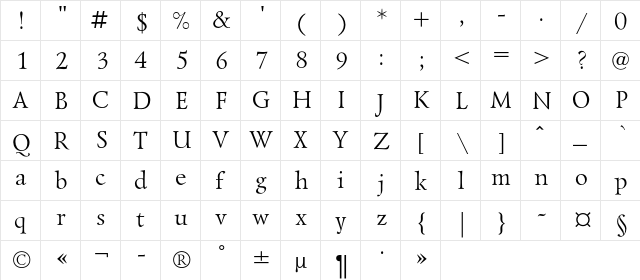
LazurskiC Regular Font Preview
LazurskiC Regular
Design Context for LazurskiC Typeface
LazurskiC takes a measured approach to typography — its balanced proportions and neutral character make it a reliable workhorse for both digital and print work.